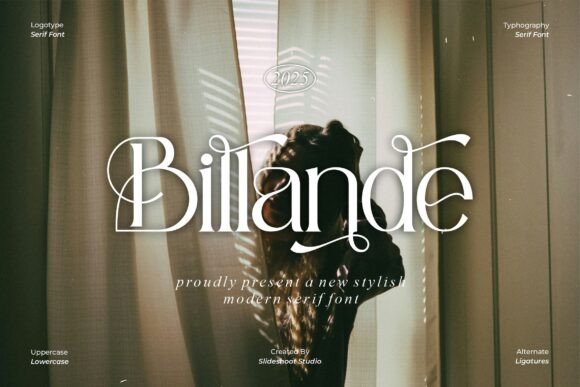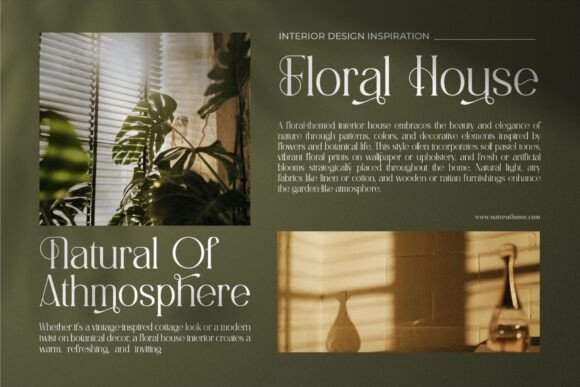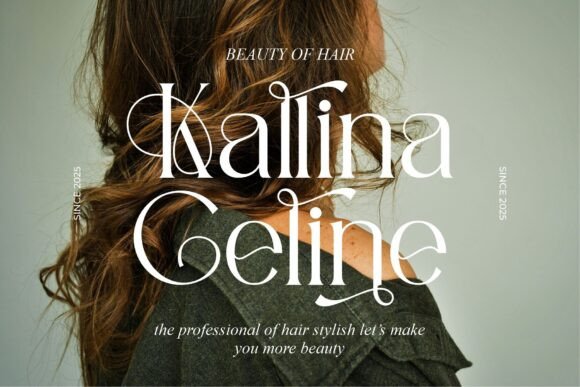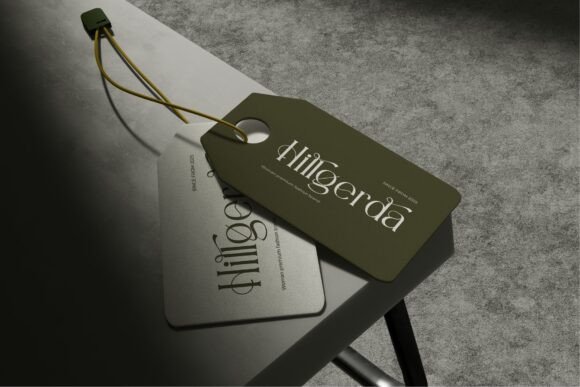
Billande Font: Elegant Serif for Luxe Branding & Logo Design
About the Billande Font
The Billande Font offers a perfect balance of form and function for your design needs. Billande is a stylish serif font with graceful curves, elegant swashes, and refined contrast—perfect for branding, editorial design, and fashion-forward logos. Its delicate ligatures and high-end feel make it ideal for anyone looking to add a luxurious and modern twist to their typography.
Billande Font Usage Examples
Billande Font Example